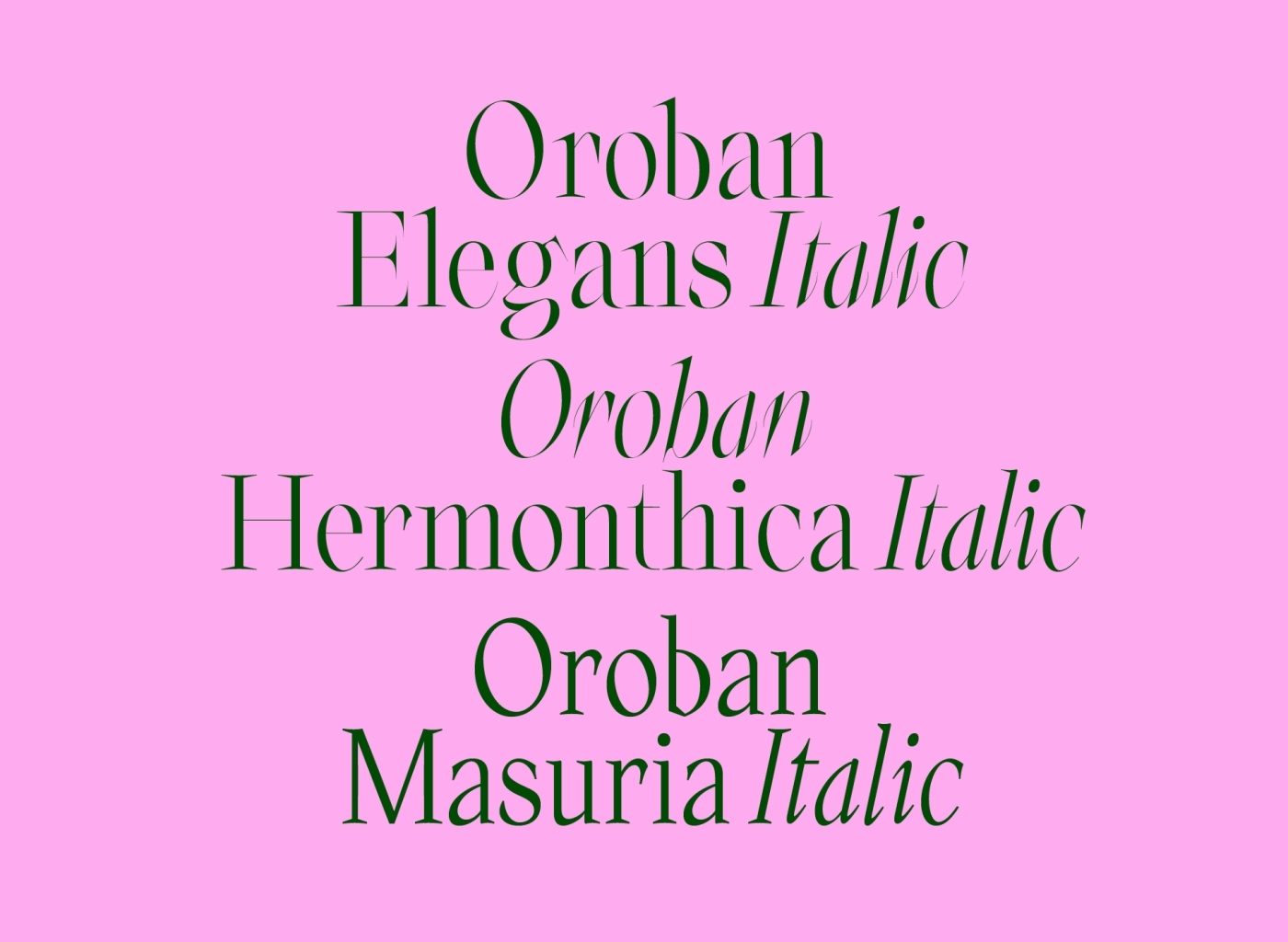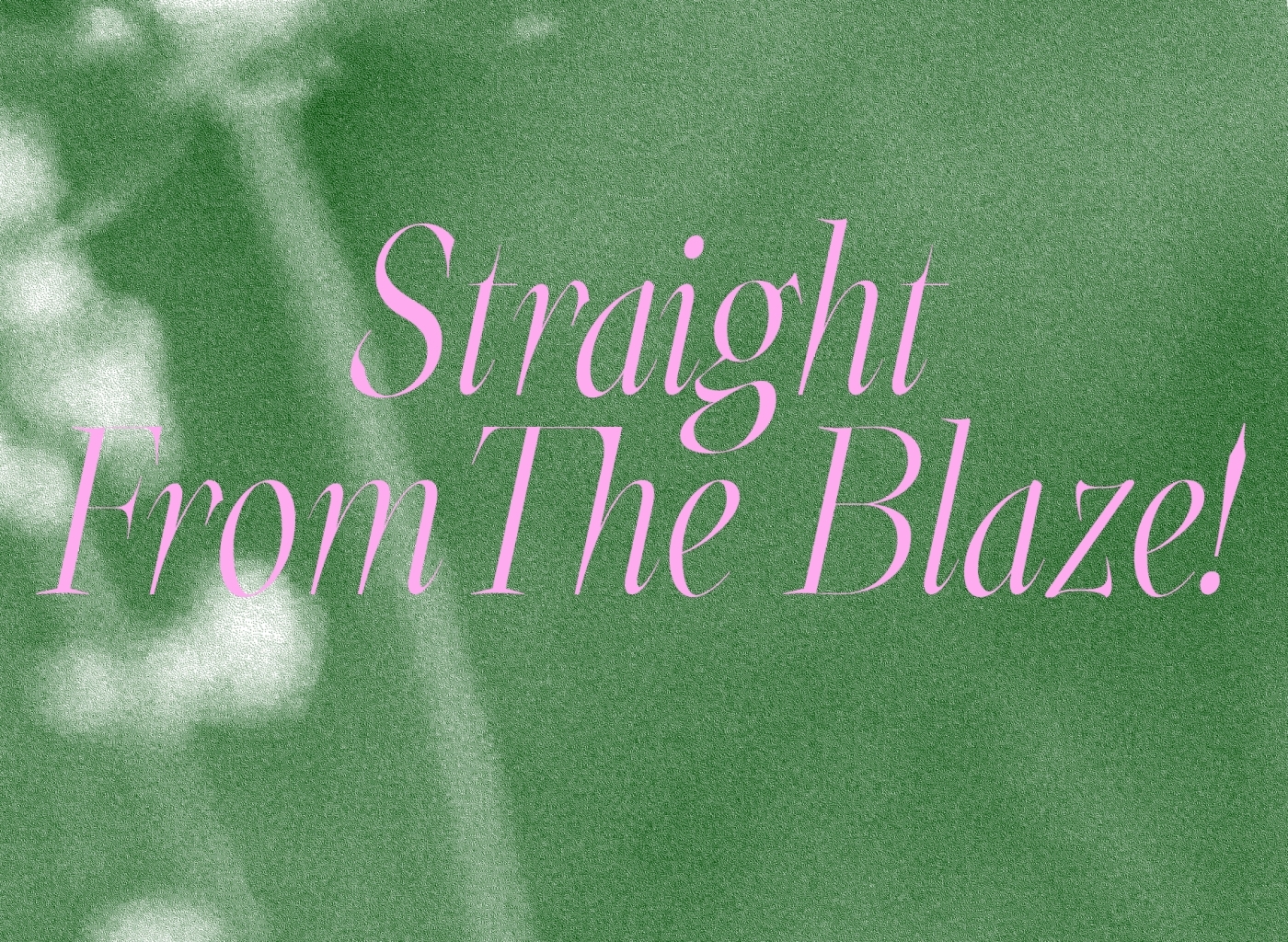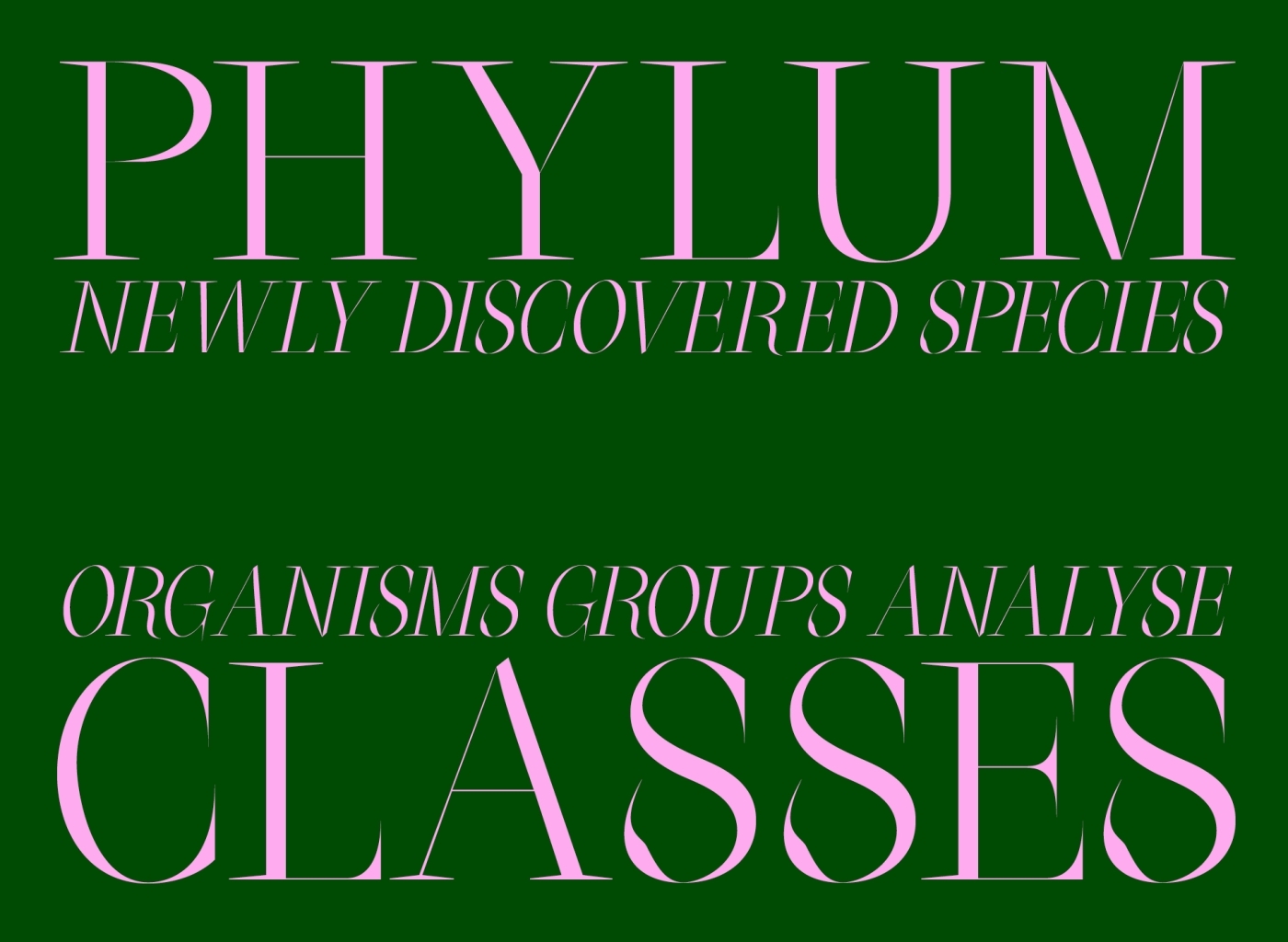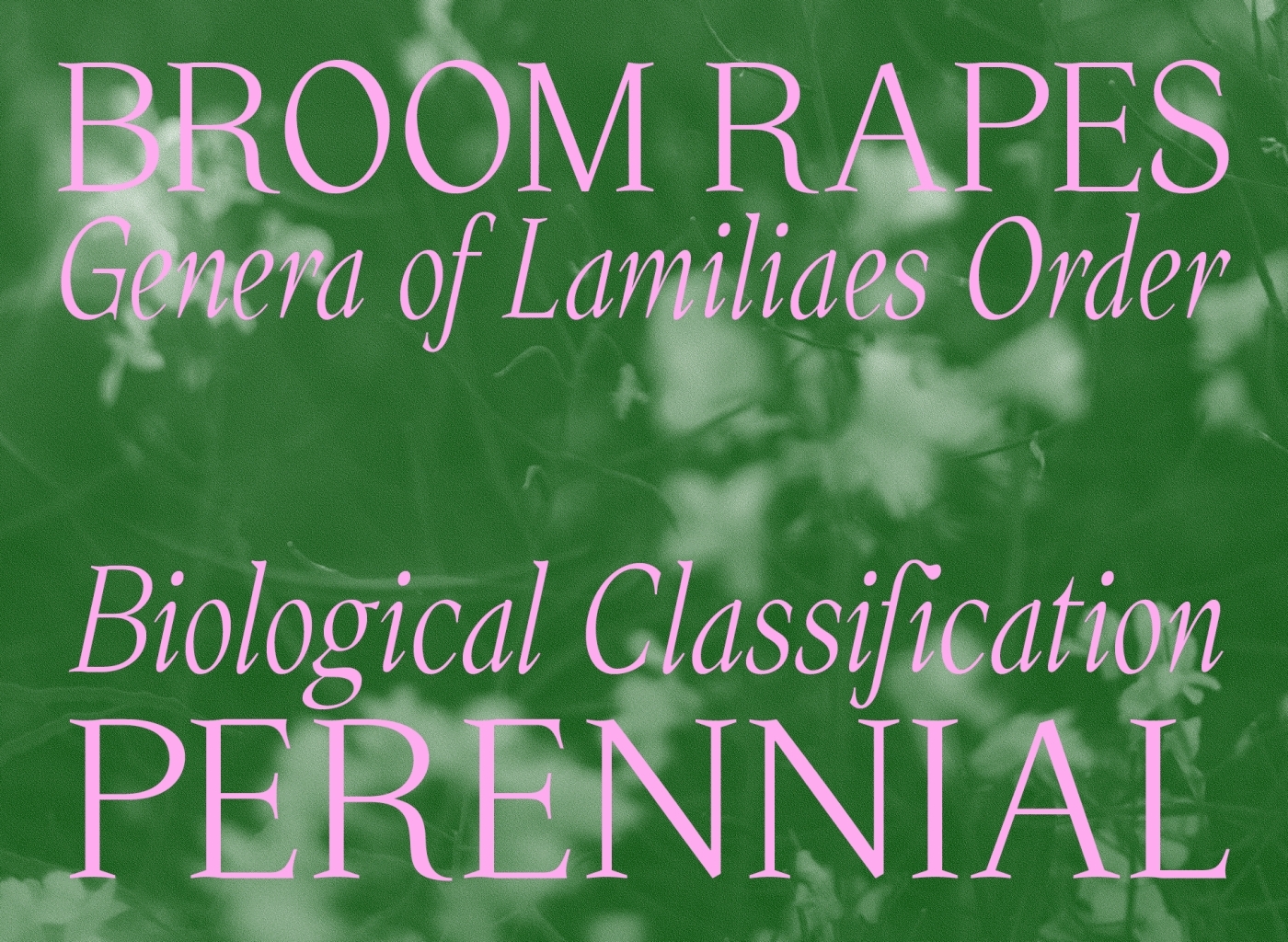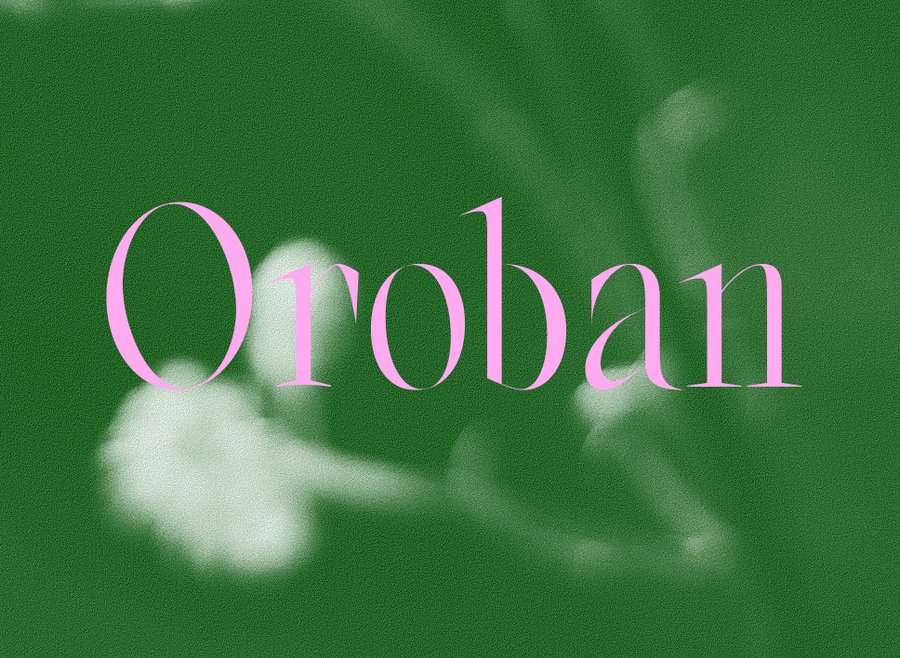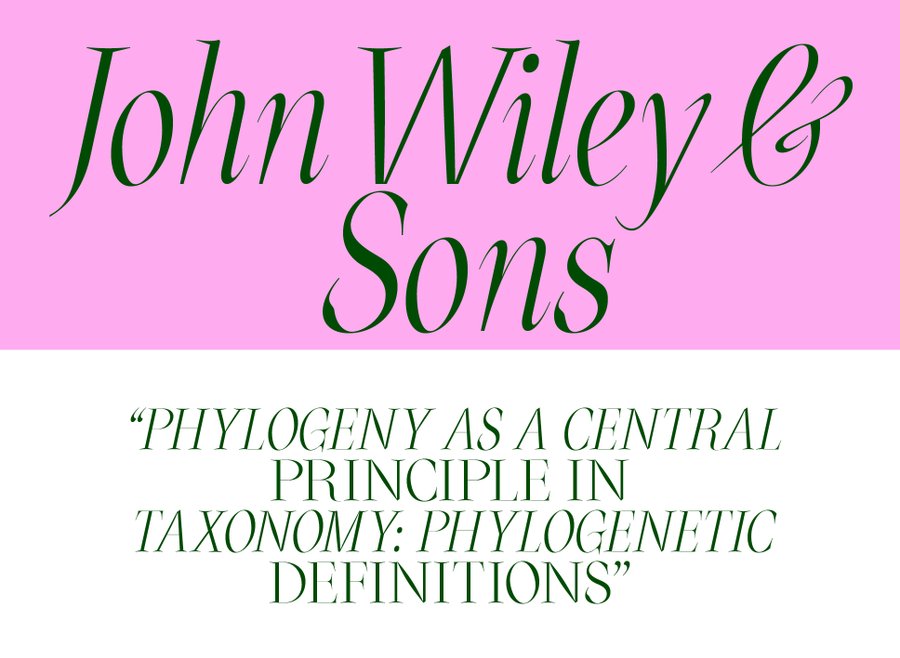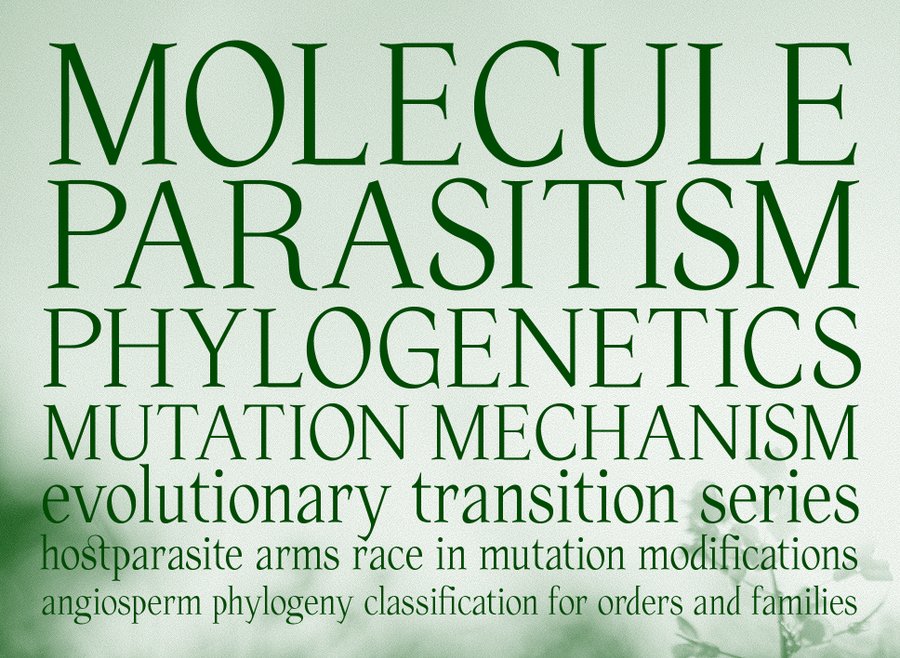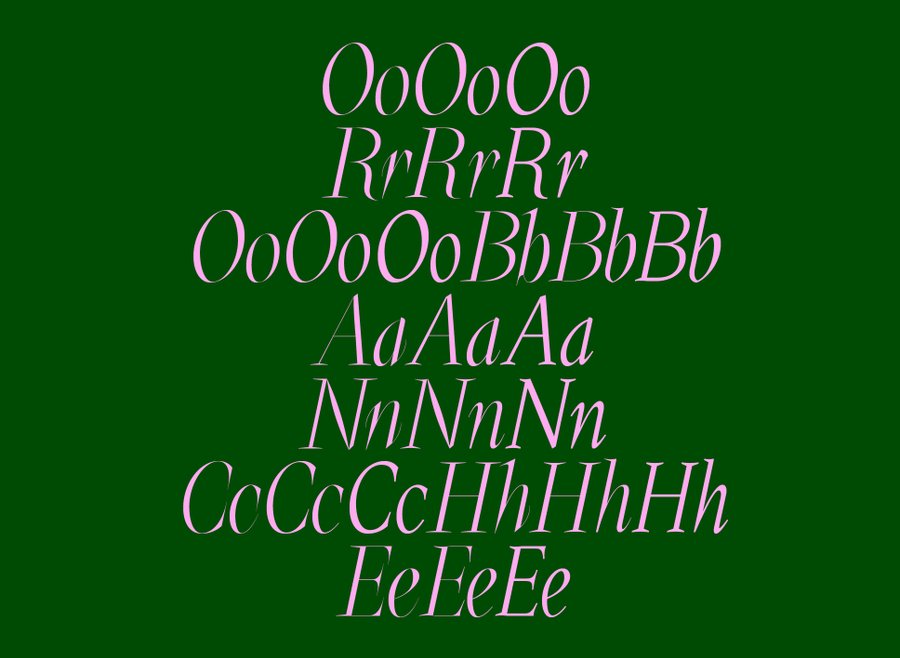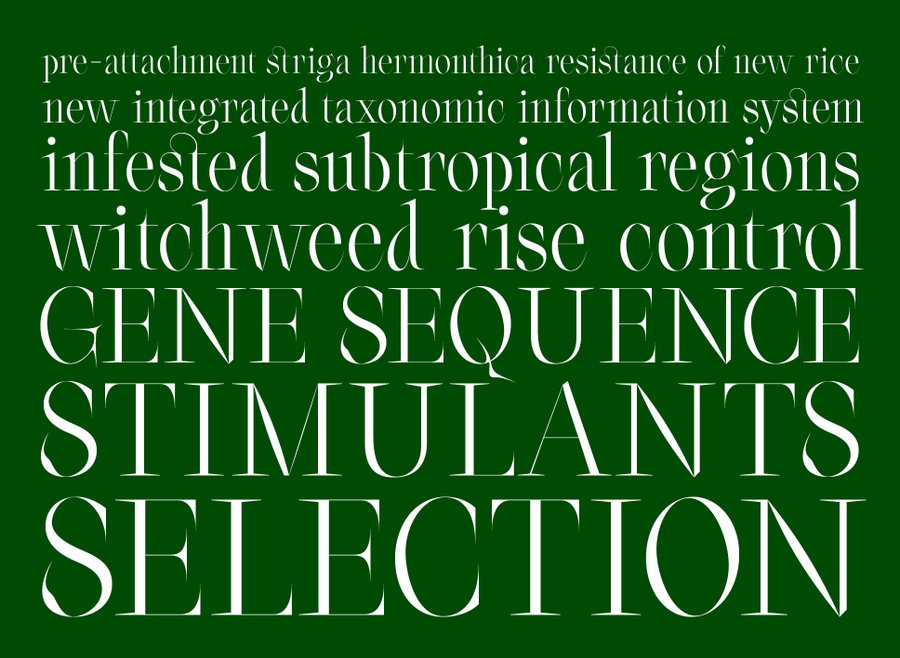
Oroban | Font Family
Oroban, the witchweed.
This type family is inspired by the different kind of flowers belonging to the Orobanchaceae family. Thus the different style’s names, Masuria, Hermonthica & Elegans. These are the parasitic plants which bring woe to whole farming cultures. Beautifully shaped in their wide variety of colours and forms. The font-family takes a deep fall into this inspiring variety of plants to extract some of their very details and mix them into letter-forms.
Six fonts available
(Oroban Masuria & Italic — Oroban Hermonthica & Italic — Oroban Elegans & Italic)
Developed for Latin European Languages